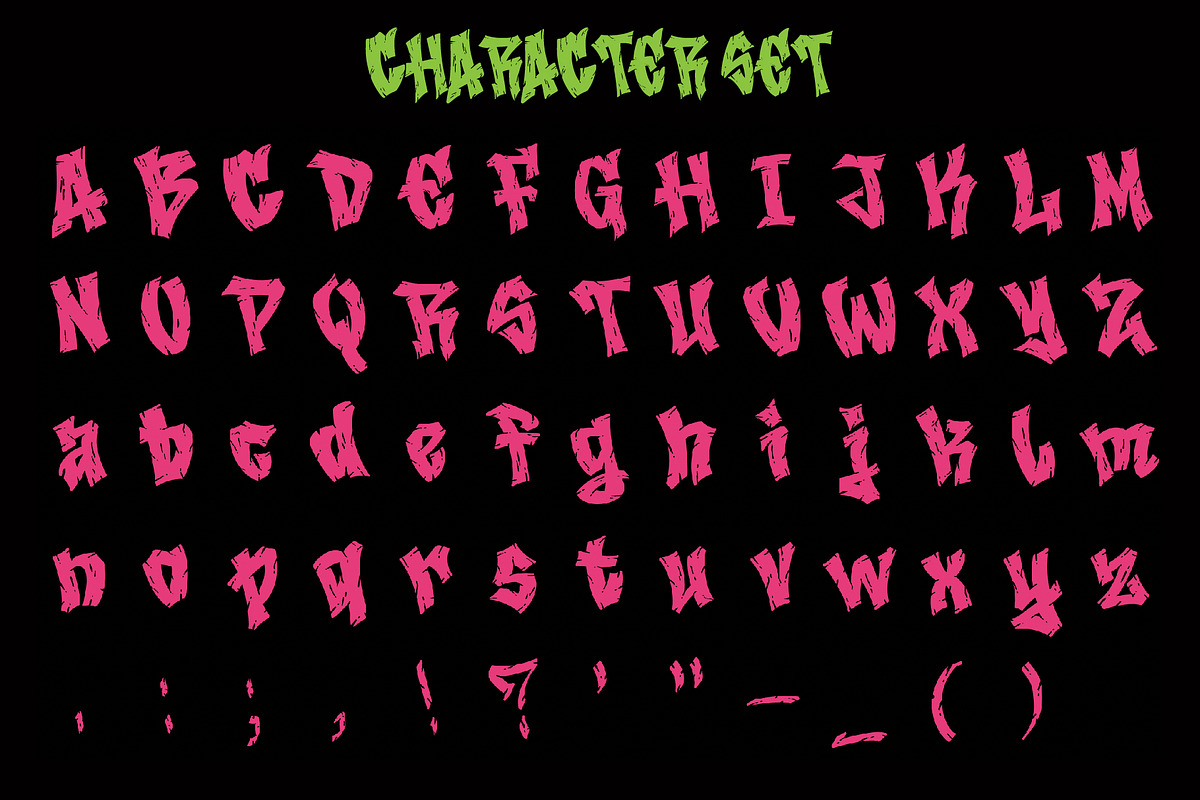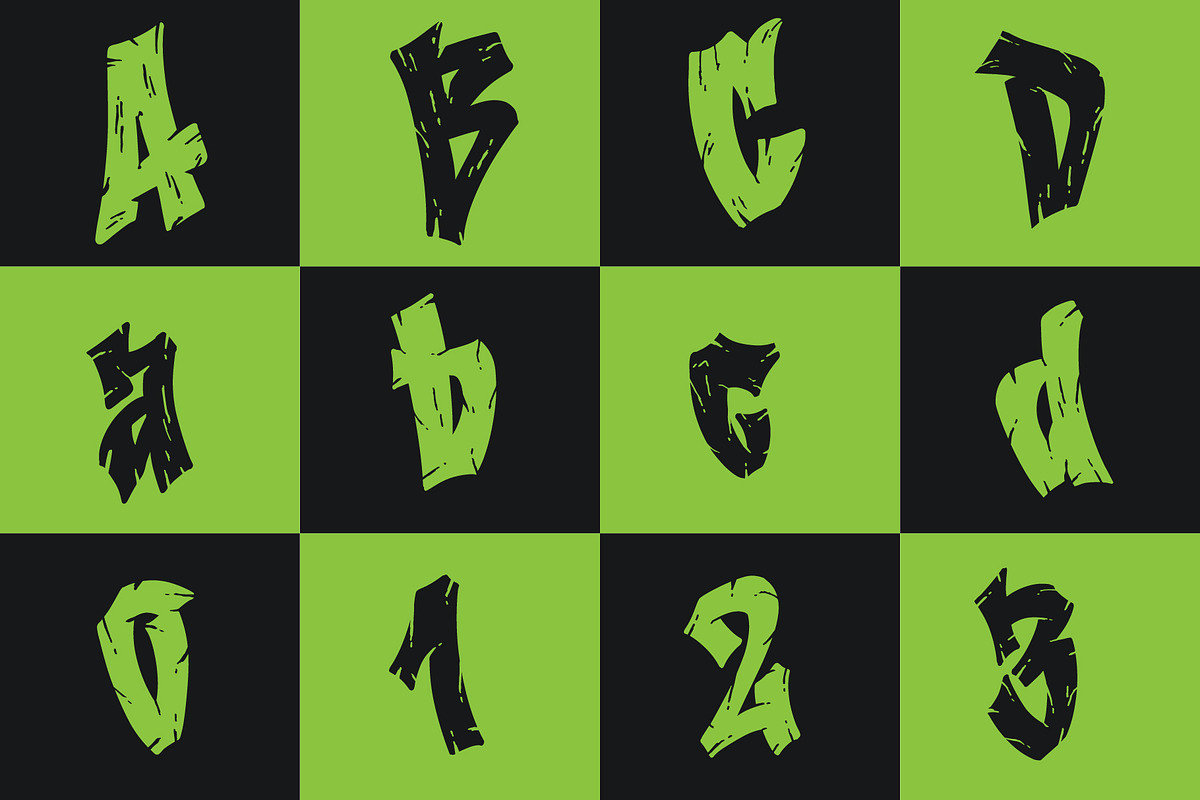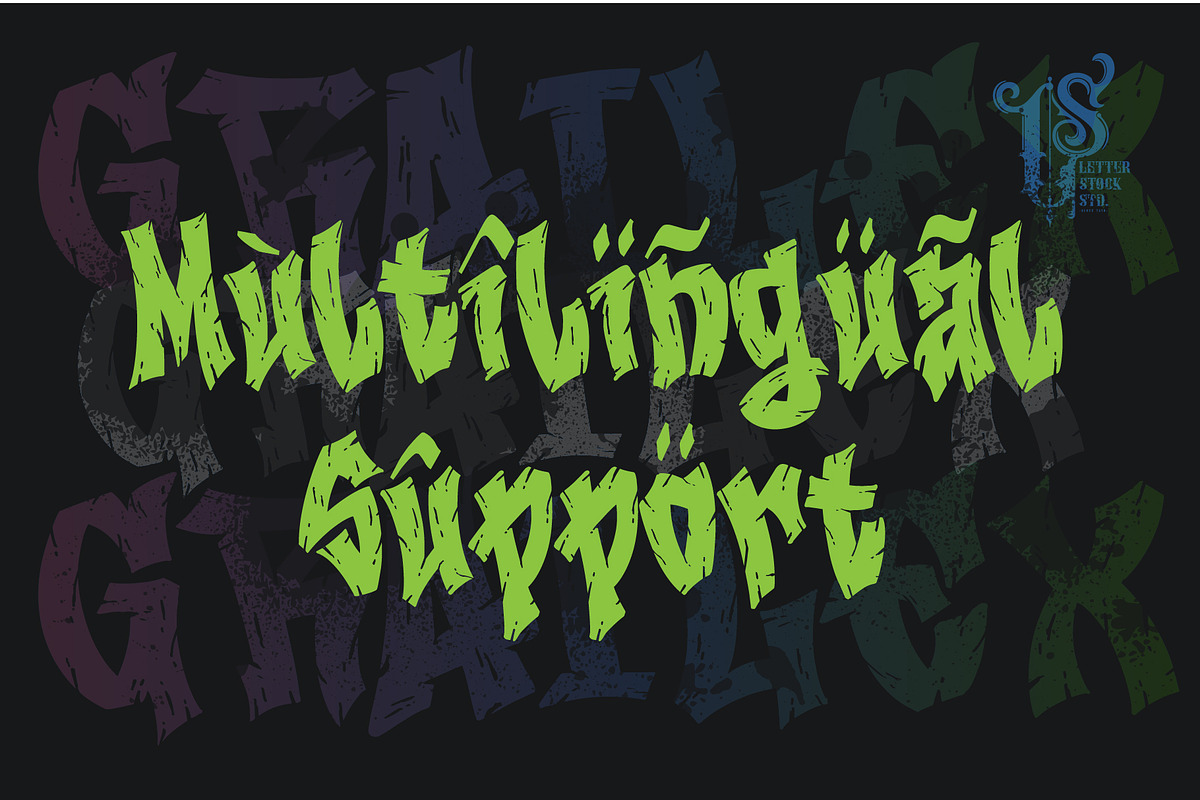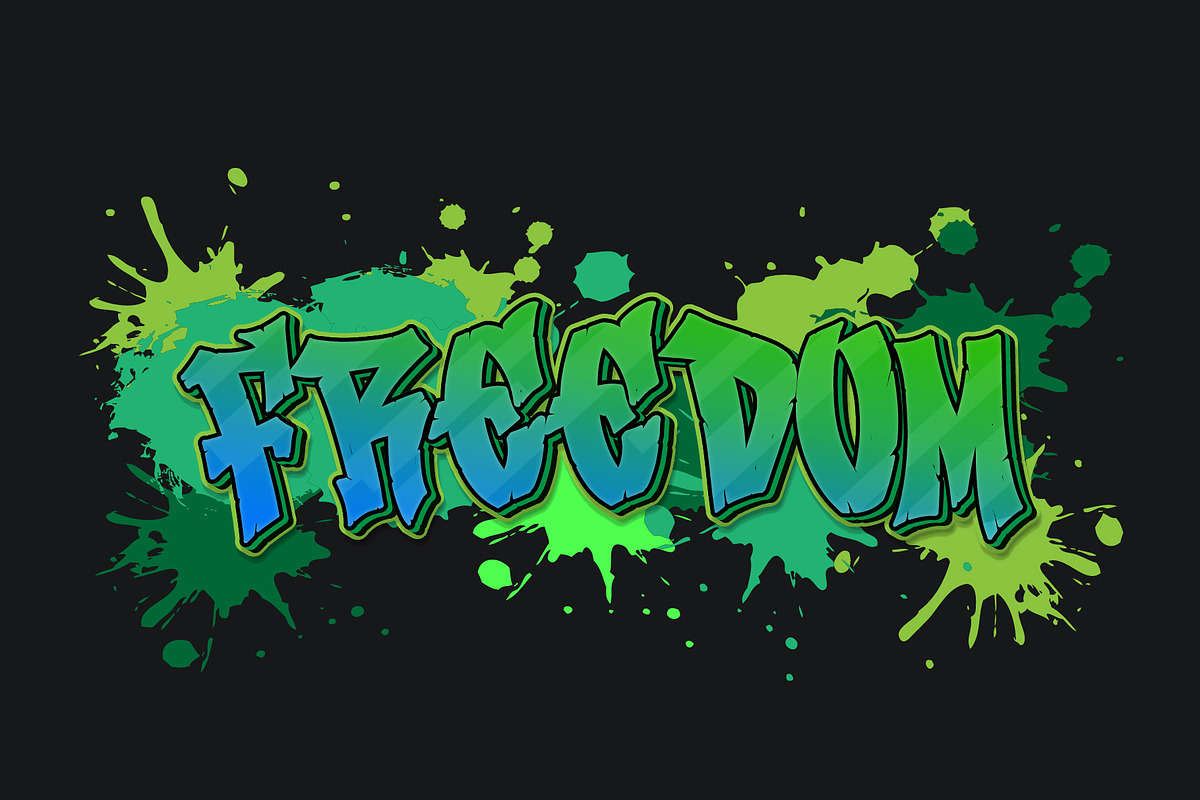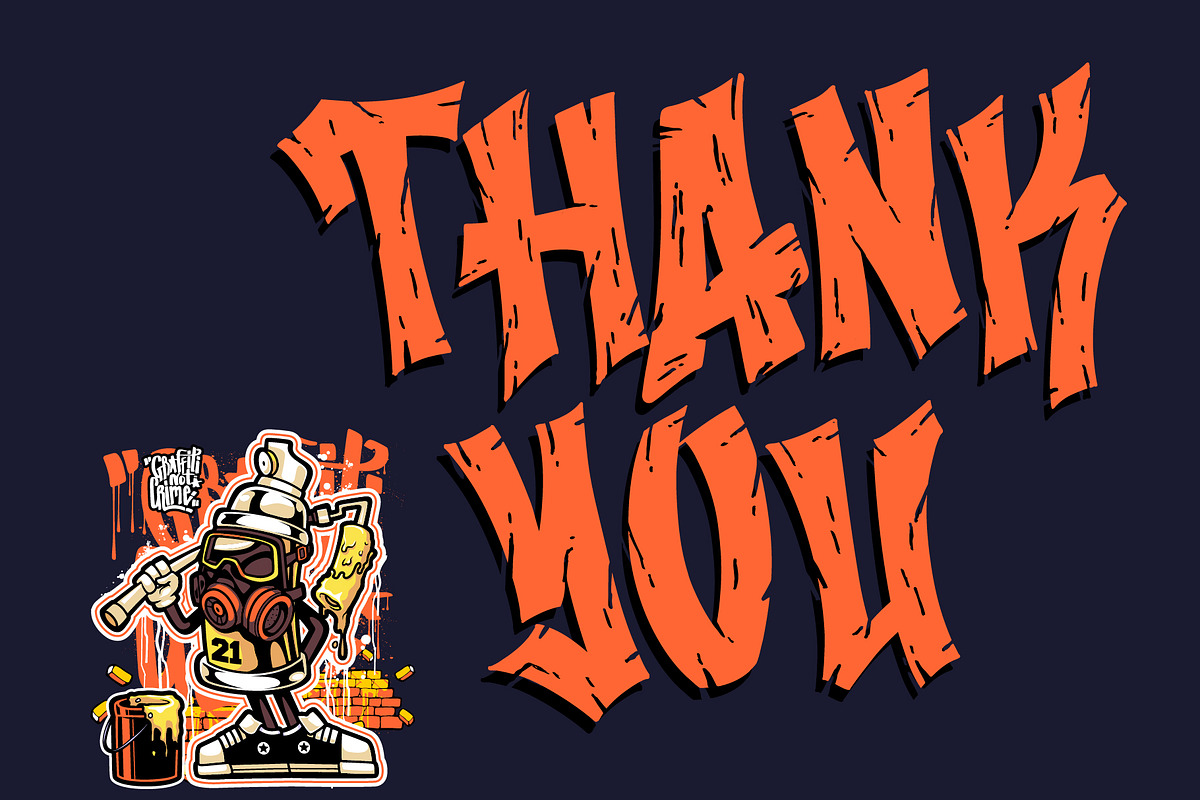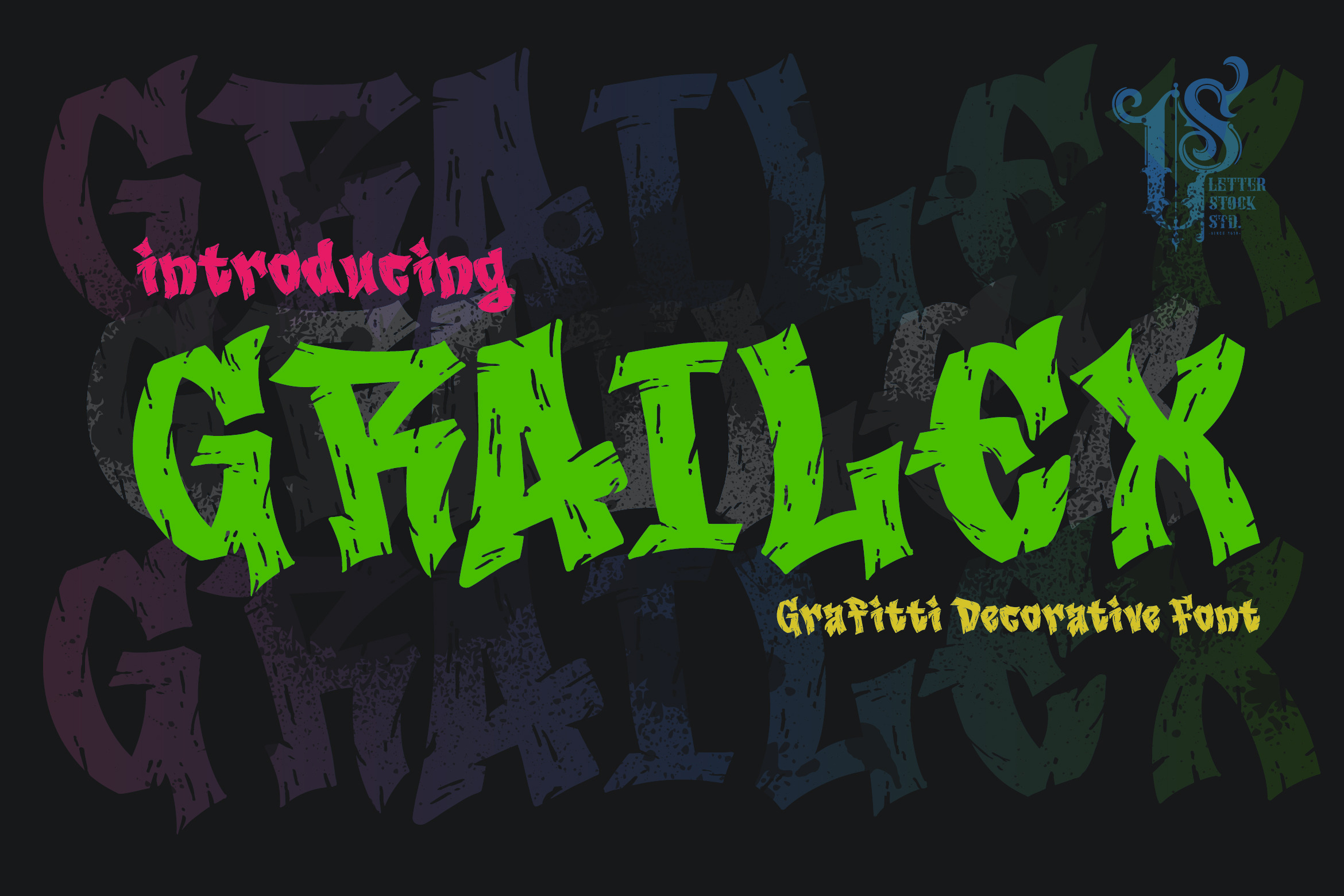
Grailex - Grafitti decorative font
Grailex Font
This pair was inspired by the grafitti street design that i saw on some coffee shop, It was crafted by hand specially to add natural handmade feeling in its brand identity than i make it clean with pentool.
Opentype features Grailex font has 169 character set included Bukle wrack Font is very good looking in logo, labels, product packaging, invitations, advertising and others.